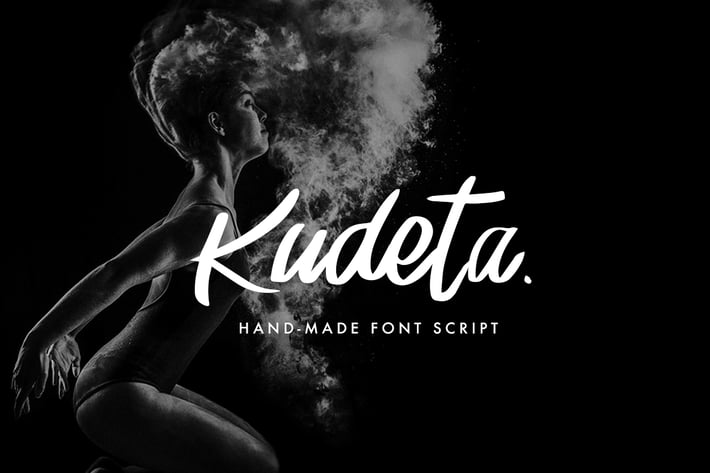
Kudeta - Handmade Font Script
We Provide You one of the best Stylish Hand Written Script.
Best match for logos, header, Titles, Prints & other Creative process possibilities.
Create a Extraordinary Typography / lettering results by using Kudeta Handmade font script